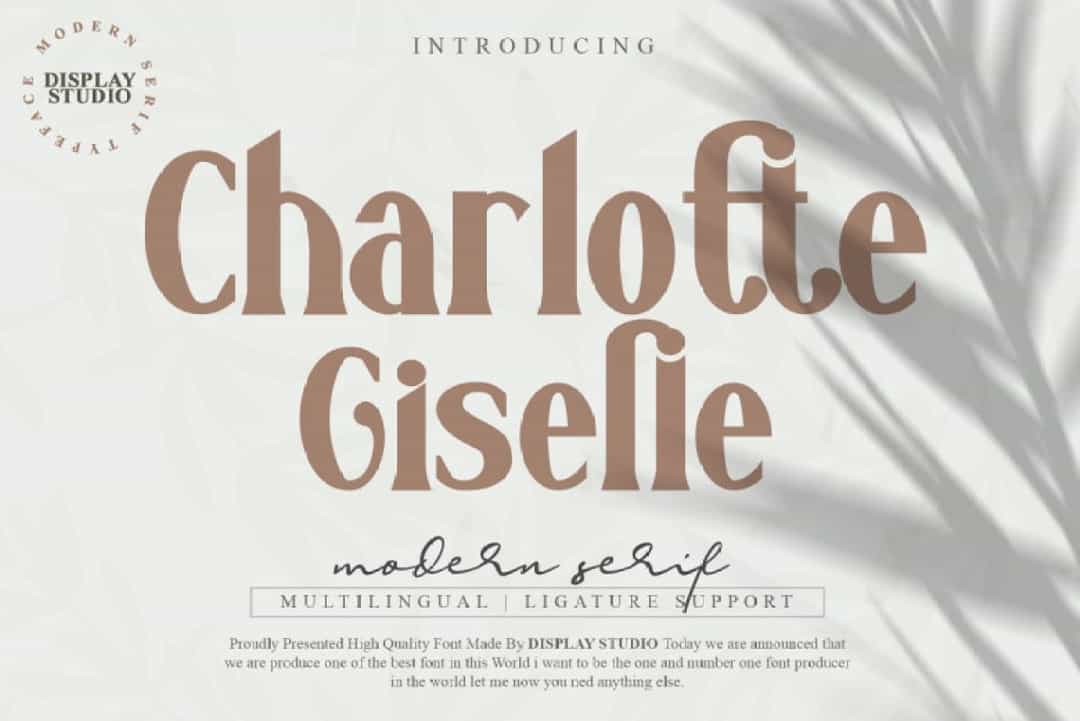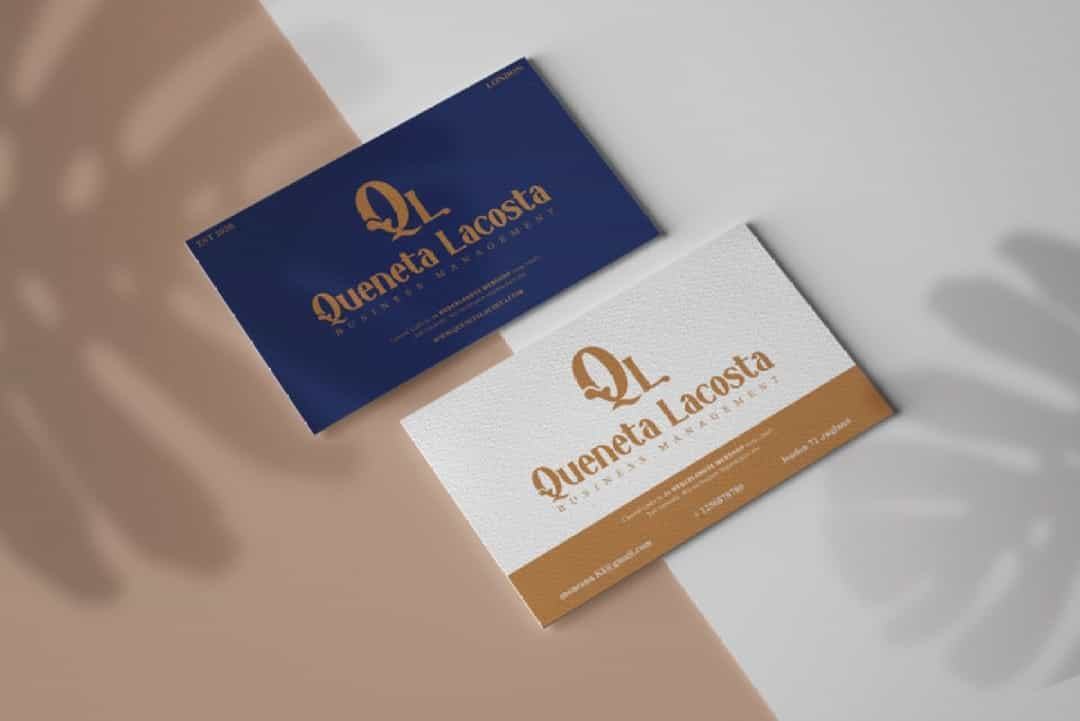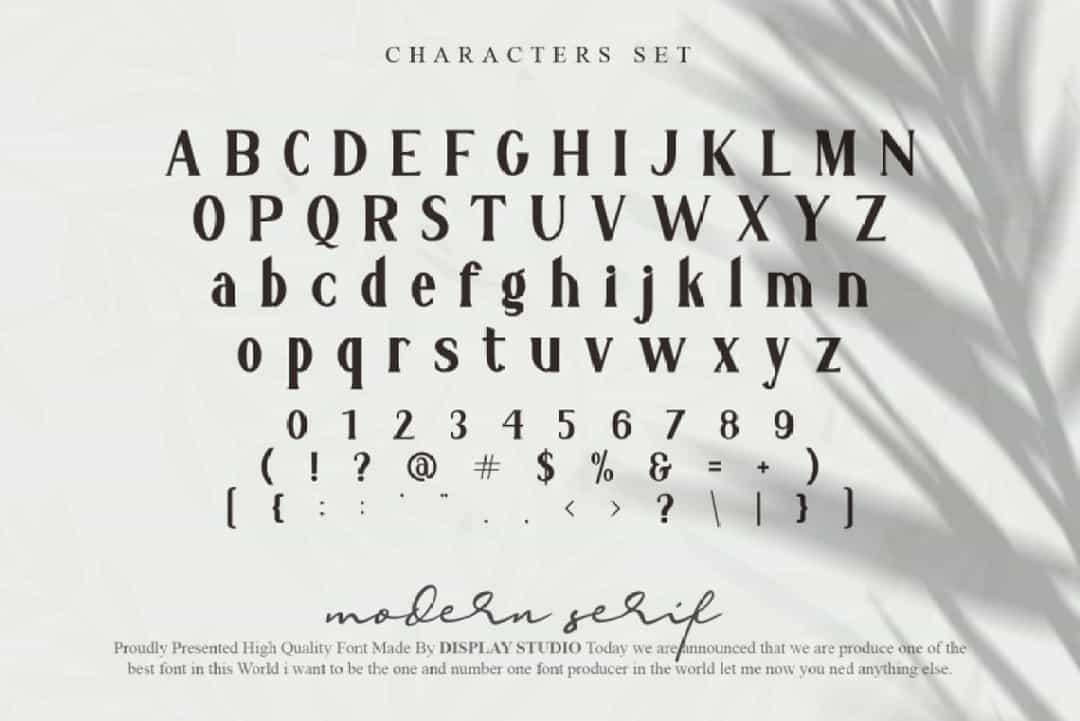
Charlotte Giselle Font is an elegant yet contemporary serif typeface, easily matching to various designs – it makes your ideas pop out! Use Charlotte Giselle Font today and watch how your ideas blossom!